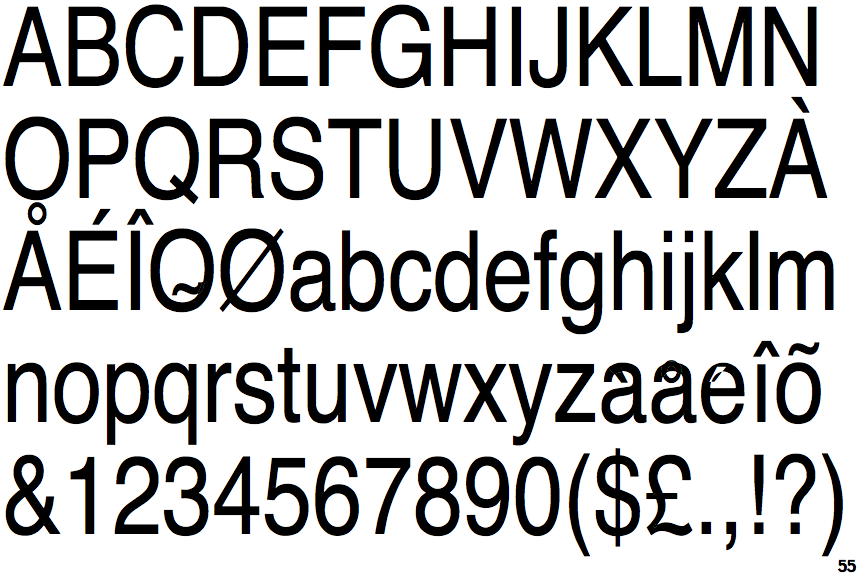
Helvetica Narrow
Helvetica Narrow is a less condensed version of Helvetica than Helvetica Condensed, and was originally provided with Postscript printers by scaling the width of Helvetica by 82%. Linotype subsequently released an optically correct version.
Designer: Max Miedinger Year: 1957, 1992 Publisher: Linotype |